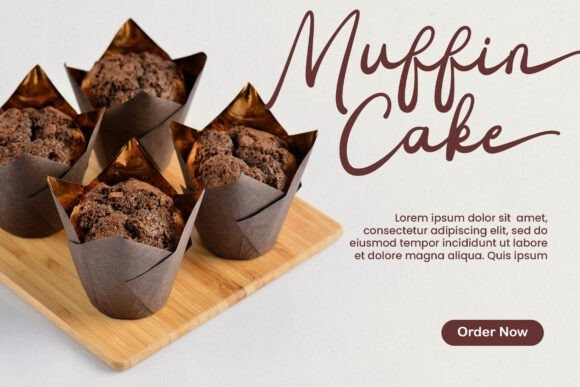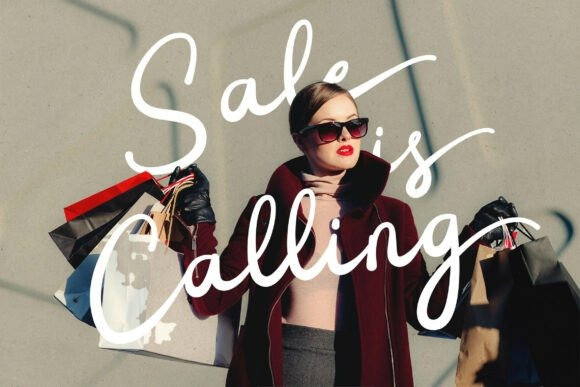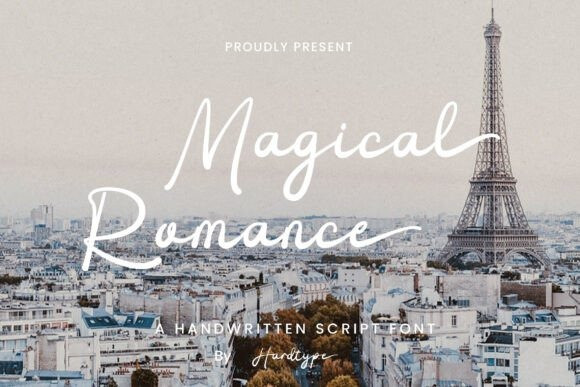
Magical Romance Font
Magical Romance Font is a dreamy handwritten script font with elegant strokes and a heartfelt, personal touch. Perfect for love letters, wedding designs, travel blogs, and branding that needs a warm and whimsical feel, this font brings effortless charm to any project.